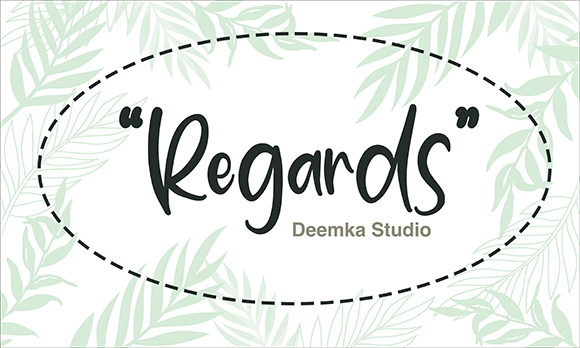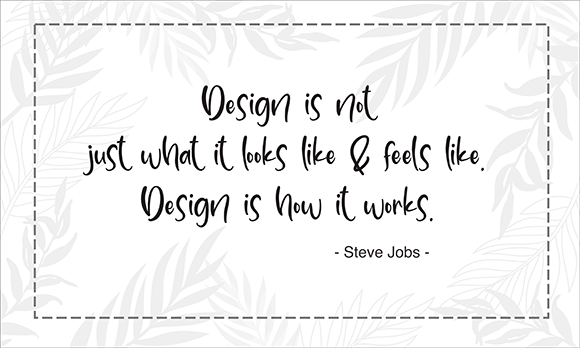
Awake Font: The Sweet and Friendly Handwritten Font for Your Creative Projects
Are you looking for a font that can add a personal touch to your designs? Do you want to create something that stands out from the crowd and speaks to your audience on a more intimate level? Look no further than Awake Font, a sweet and friendly handwritten font that’s perfect for a wide range of creative projects.
What is Awake Font?
Awake Font is a beautifully crafted handwritten font that’s designed to bring a sense of warmth and personality to your designs. Its natural and unique style makes it incredibly fitting for a large pool of designs, from invitations and greeting cards to branding and advertising materials. The only limit is your imagination!
Characteristics of Awake Font
So, what makes Awake Font so special? Here are just a few of its key characteristics:
• Handwritten style: Awake Font is a genuine handwritten font, created to mimic the natural flow and imperfections of handwriting. This gives it a unique and personal feel that’s hard to replicate with digital fonts.
• Sweet and friendly: The font has a distinctly sweet and friendly tone, making it perfect for designs that need to convey a sense of approachability and warmth.
• Natural and unique: Awake Font has a natural, organic feel that’s free from the stiffness and uniformity of more traditional digital fonts. This makes it perfect for designs that need to stand out from the crowd.
• Highly versatile: Whether you’re designing a logo, creating a social media graphic, or crafting a beautiful invitation, Awake Font is the perfect choice. Its versatility knows no bounds!
Uses for Awake Font
So, what can you use Awake Font for? The possibilities are endless! Here are just a few ideas to get you started:
• Invitations and greeting cards: Awake Font is perfect for creating beautiful, personalized invitations and greeting cards for special occasions like weddings, birthdays, and holidays.
• Branding and advertising: The font’s friendly and approachable tone makes it a great choice for branding and advertising materials, from logos and business cards to social media graphics and flyers.
• Digital and print media: Awake Font can be used for both digital and print media, including ebooks, blogs, magazines, and more.
• Crafting and DIY projects: If you’re a crafter or DIY enthusiast, Awake Font is a great choice for your projects, from handmade cards and gift tags to customized jewelry and home decor.
Tips for Using Awake Font
Here are a few tips for getting the most out of Awake Font:
• Experiment with different sizes and colors: Awake Font looks great in a variety of sizes and colors, so don’t be afraid to experiment and find the combination that works best for your design.
• Pair it with other fonts: Awake Font pairs well with a range of other fonts, from bold and modern to elegant and sophisticated. Try pairing it with a contrasting font to add visual interest to your design.
• Use it to add a personal touch: Awake Font is all about adding a personal touch to your designs. Use it to create a sense of warmth and connection with your audience.
Font Name Awake Font
Author DEEMKA STUDIO
In conclusion, Awake Font is a sweet and friendly handwritten font that’s perfect for a wide range of creative projects. Its natural and unique style makes it incredibly fitting for designs that need to stand out from the crowd and speak to the audience on a more intimate level. Whether you’re a designer, crafter, or DIY enthusiast, Awake Font is a great choice for adding a personal touch to your projects. So why wait? Download Awake Font today and start creating something beautiful!